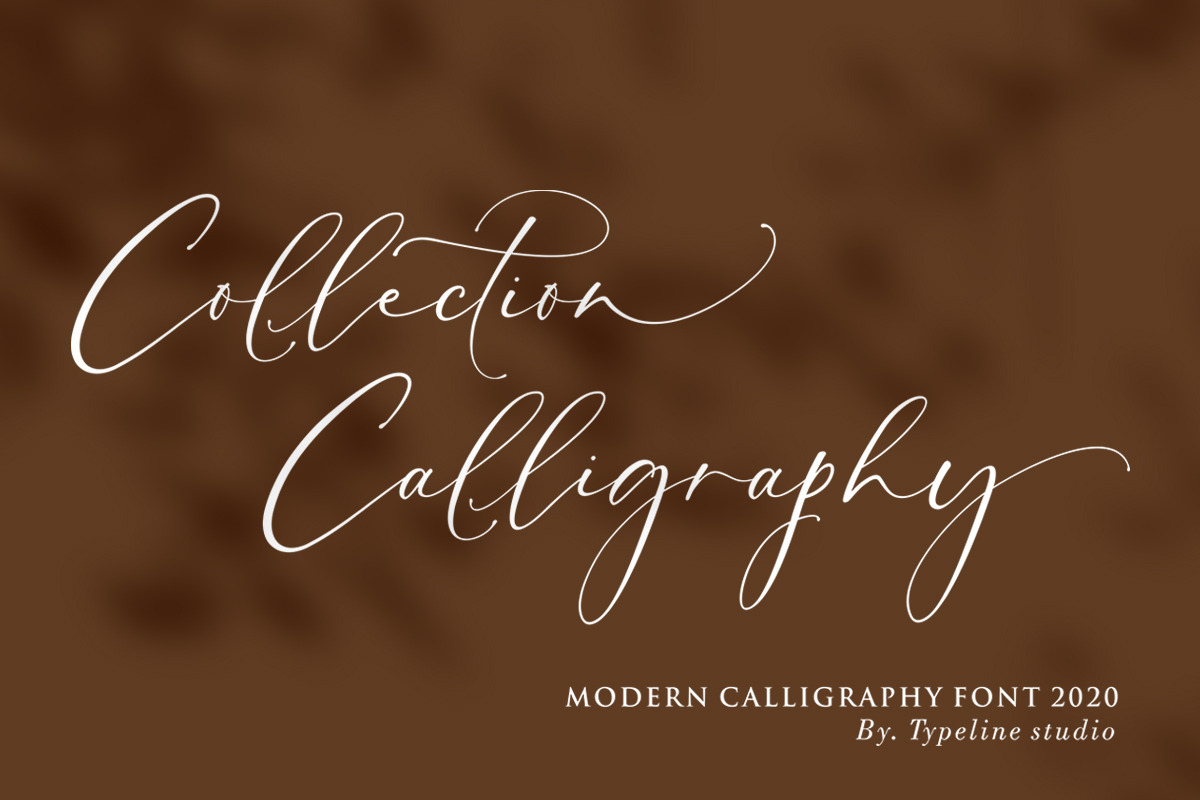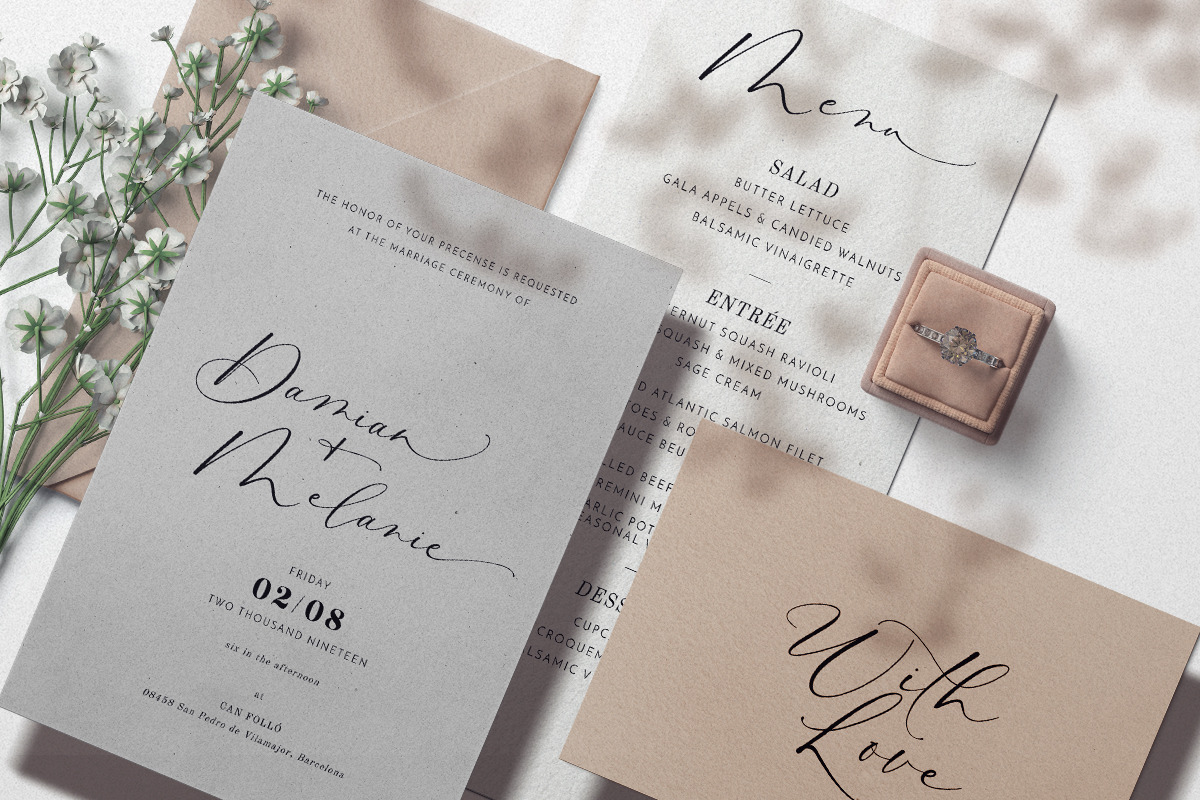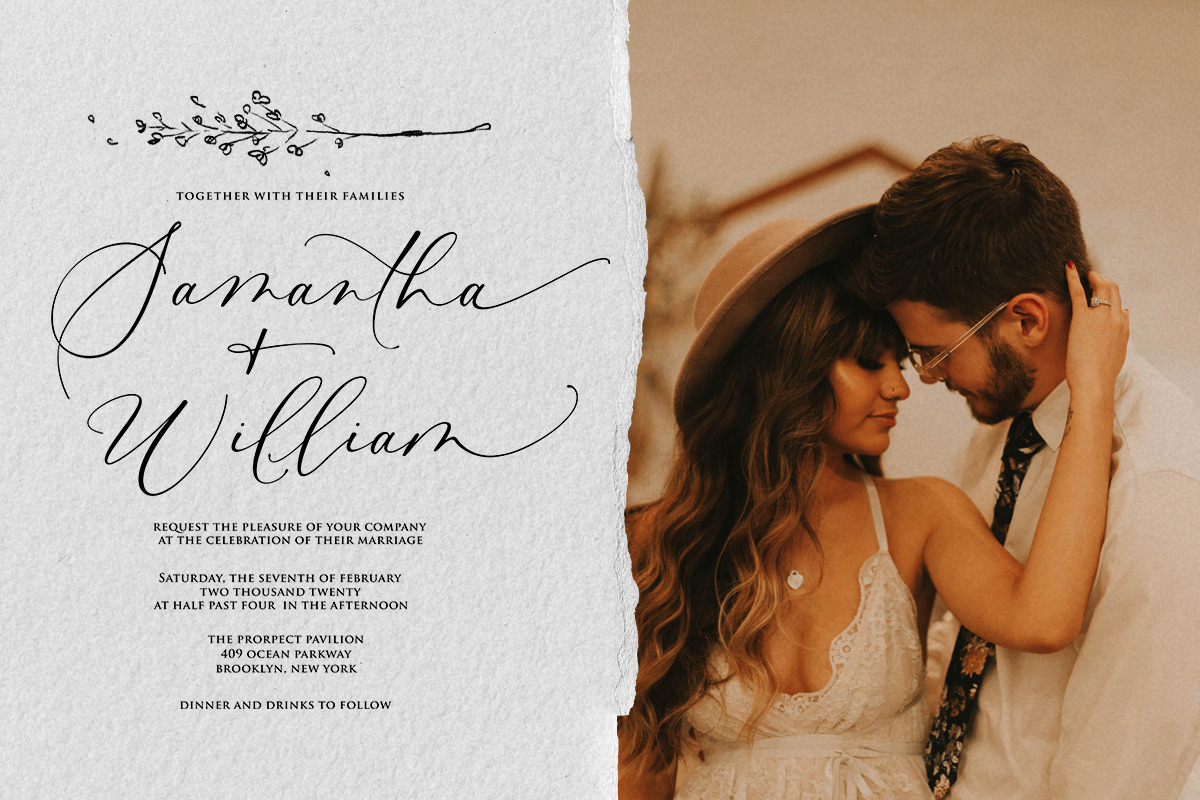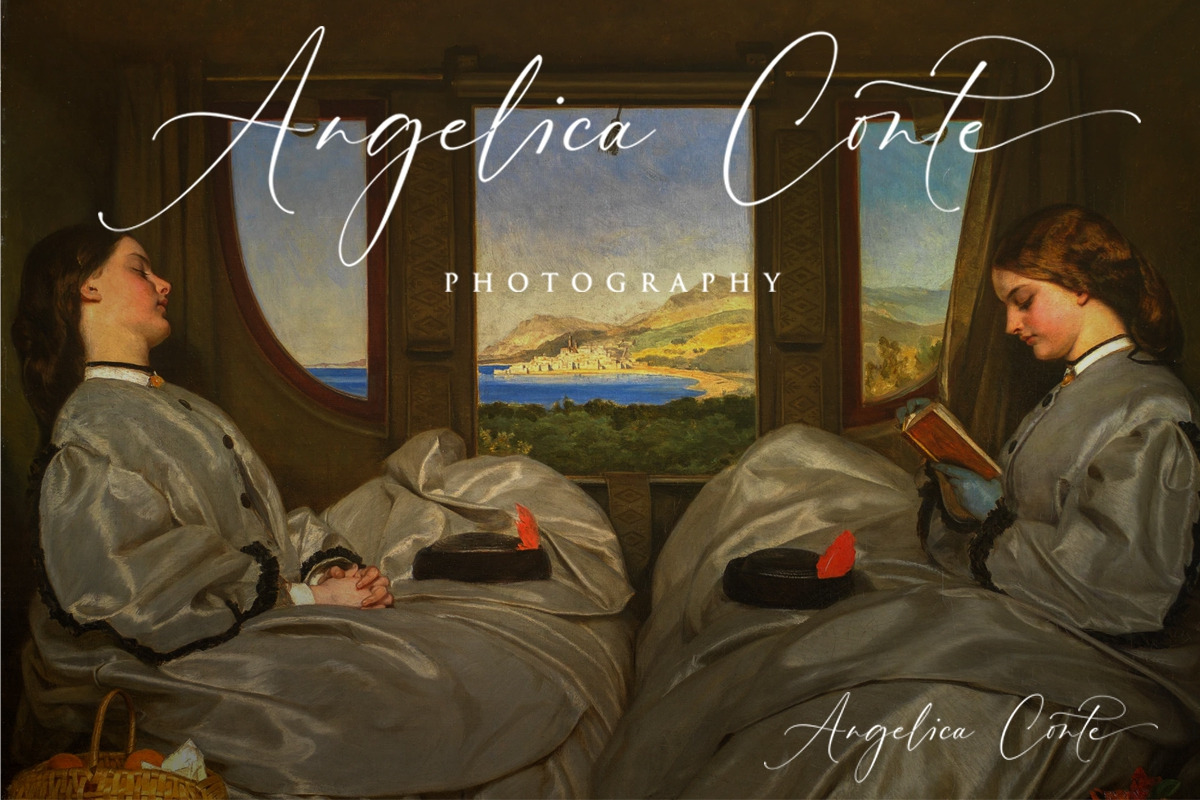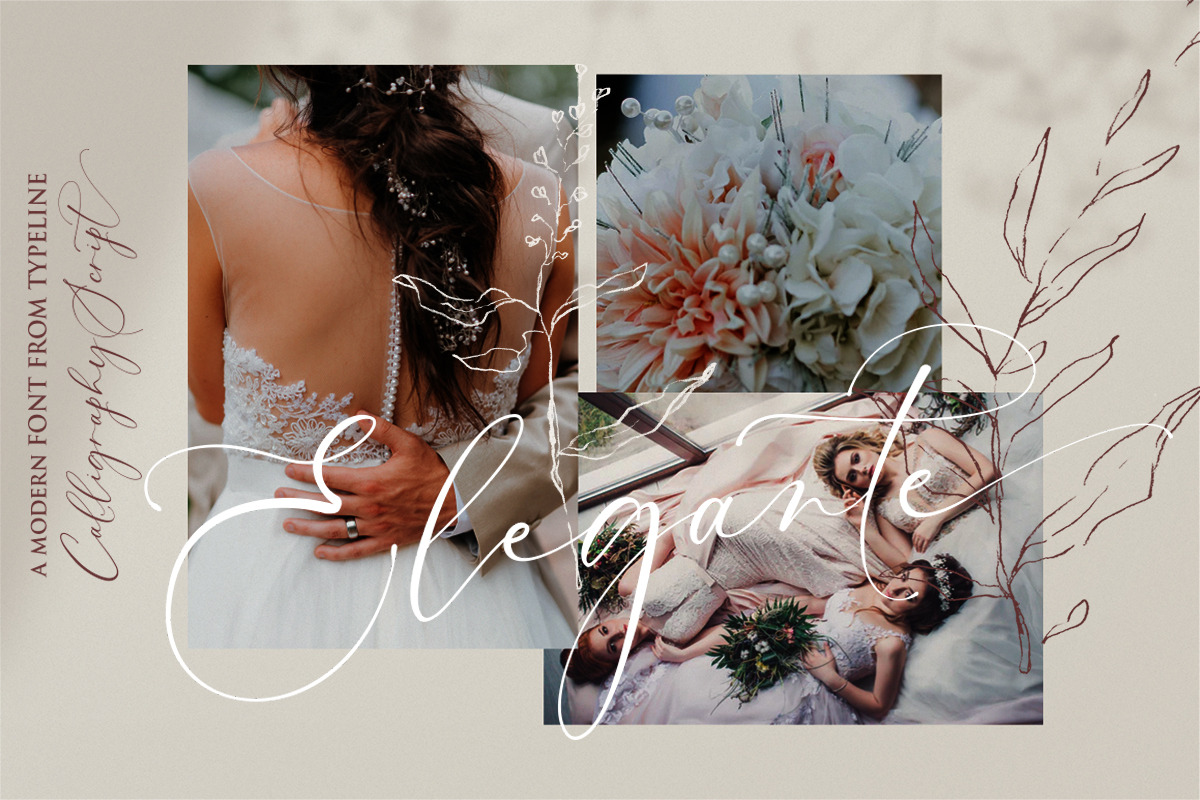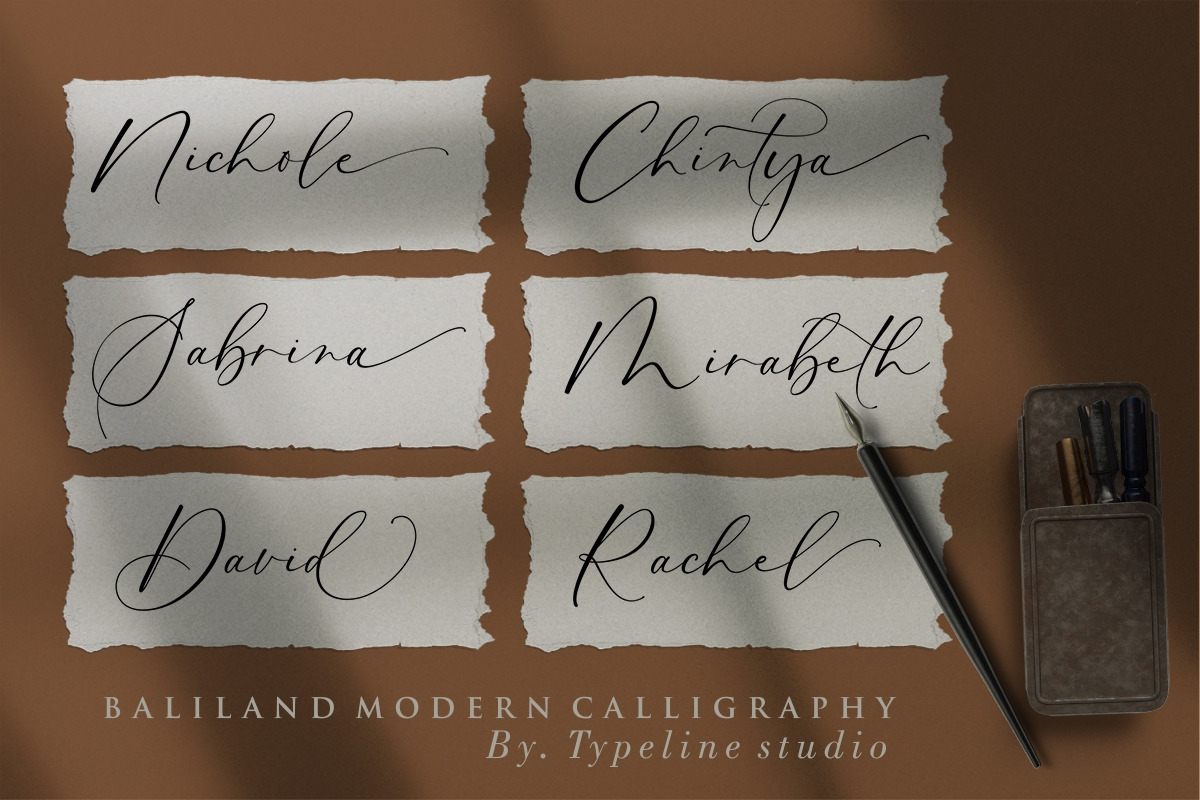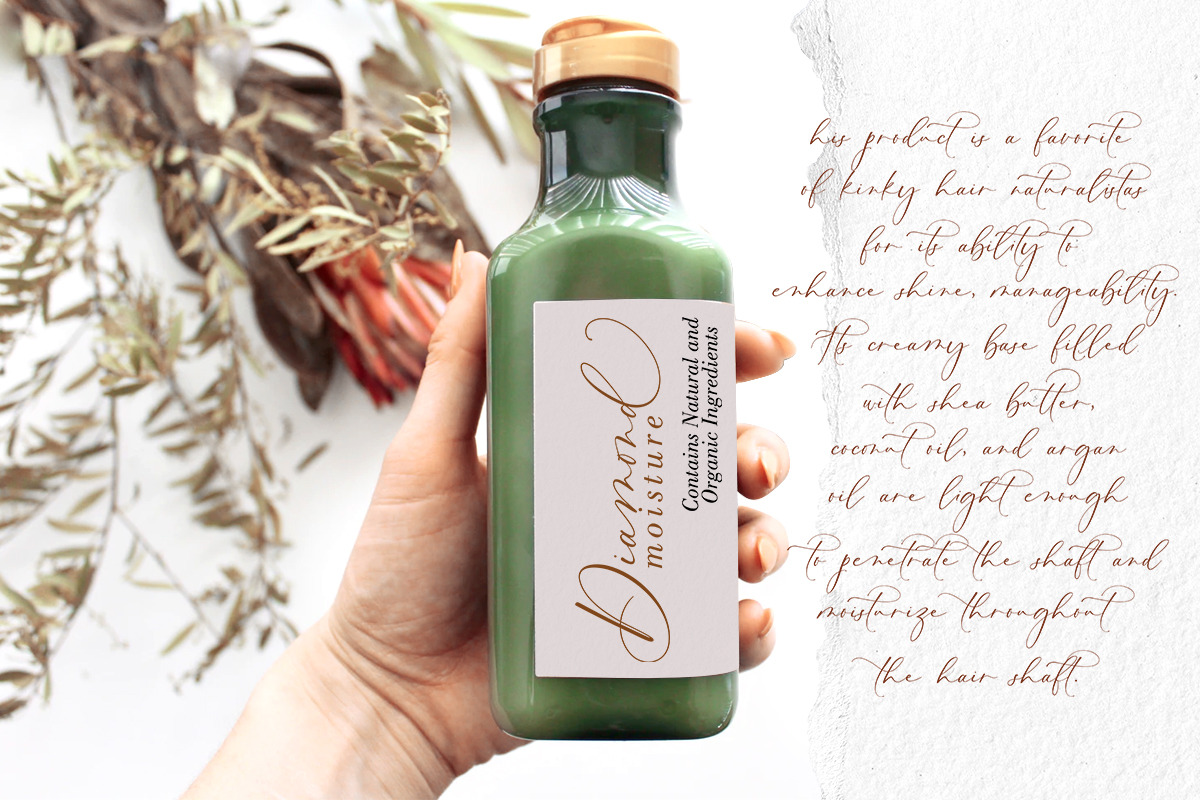
Baliland Modern Calligraphy Font.
Baliland is a modern Calligraphy font ant Baliland is inspired by the beauty of Bali insland which is full of romance. i hope this font perfect for creating wedding card intvitation ,rsvp,baliland best for suitable for feminine logos or branding.
Baliland includes full set of beautifull hand lettered uppercase ,lowercase , numerals, ligature,and ending lowercase.